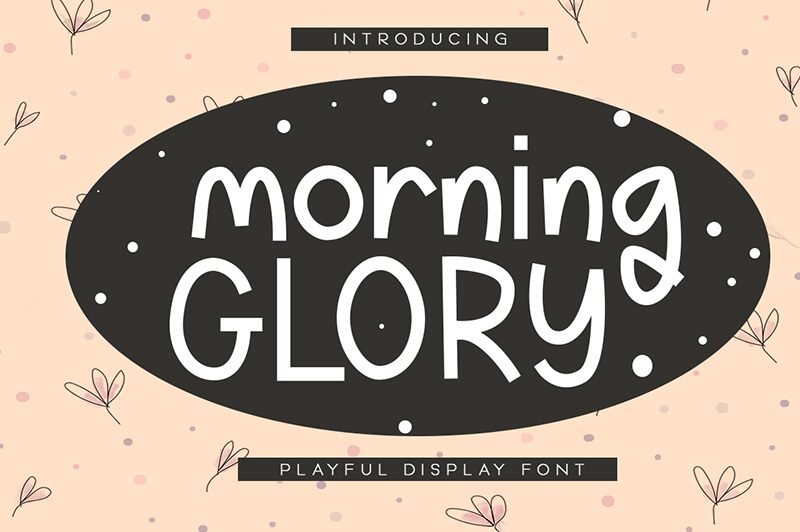
Morning Glory font by Wildan Type is a light cartoon display font with unconventional forms. It features a friendly and whimsical style that would make the perfect match for laid-back audiences. The slightly irregular letter structures highlight the relaxed nature of this casual typeface.
Enjoy Morning Glory in your comic books, children’s books, animation projects, video games, greeting cards, birthday invitations etc. The free display font will also be a great addition to book covers, magazines, advertising posters or ads, fun branding ideas and more.
Morning Glory is a display handwritten typeface that is suitable for all your products. Please note that this version is for personal use only.